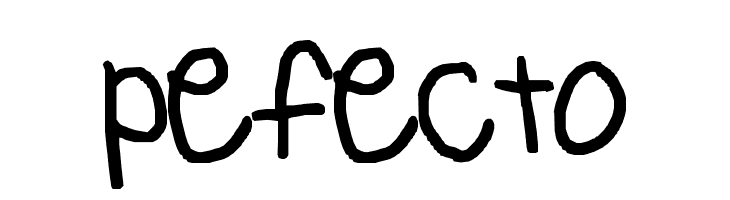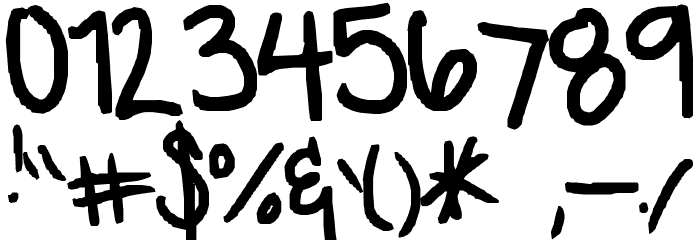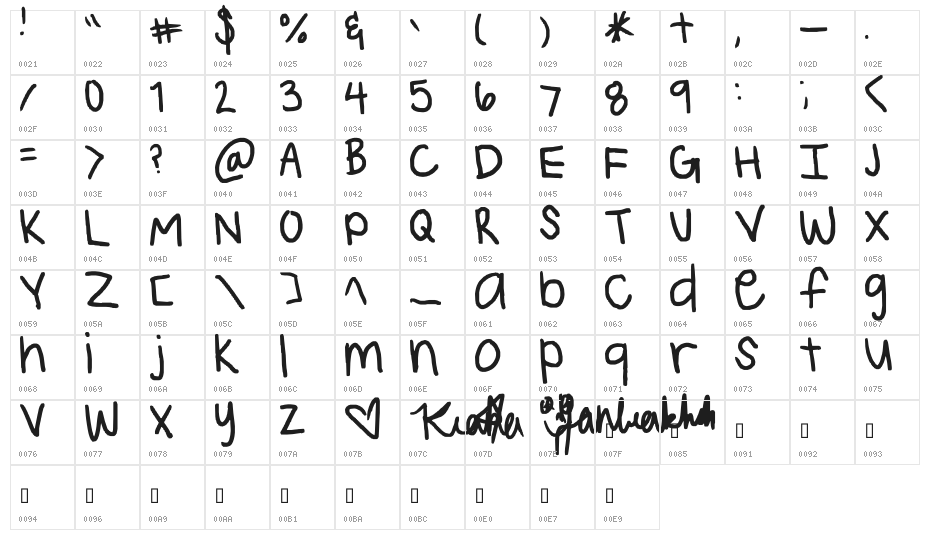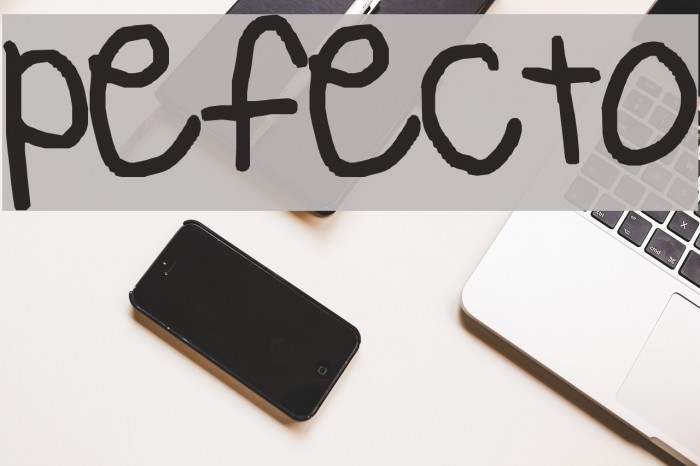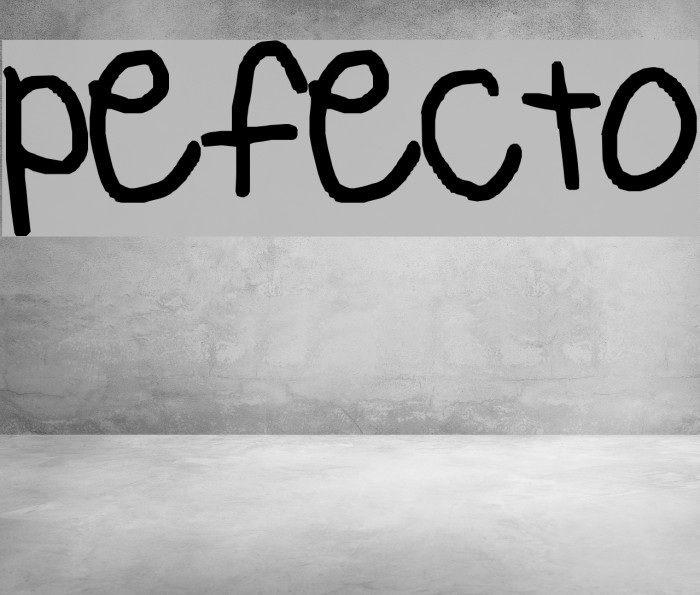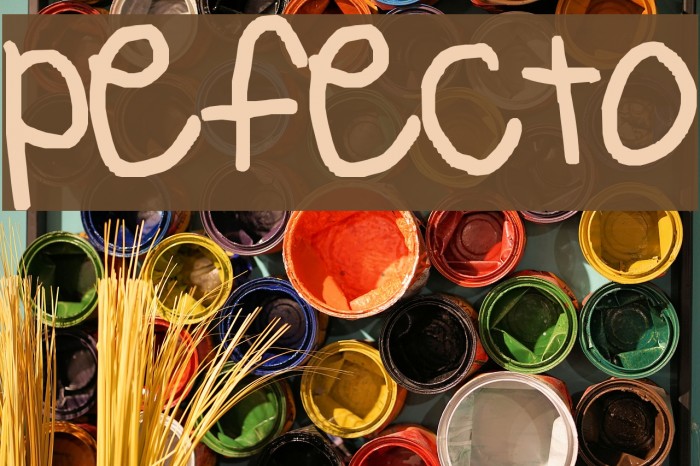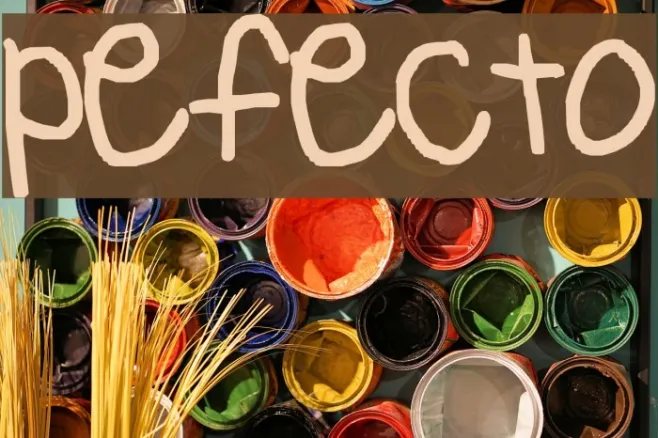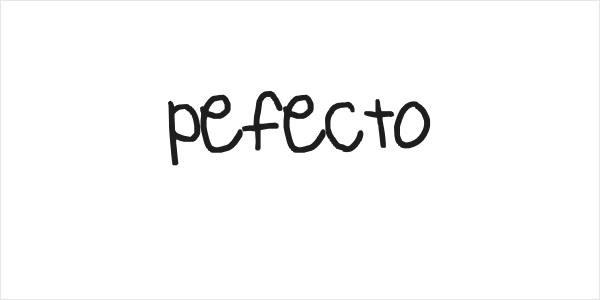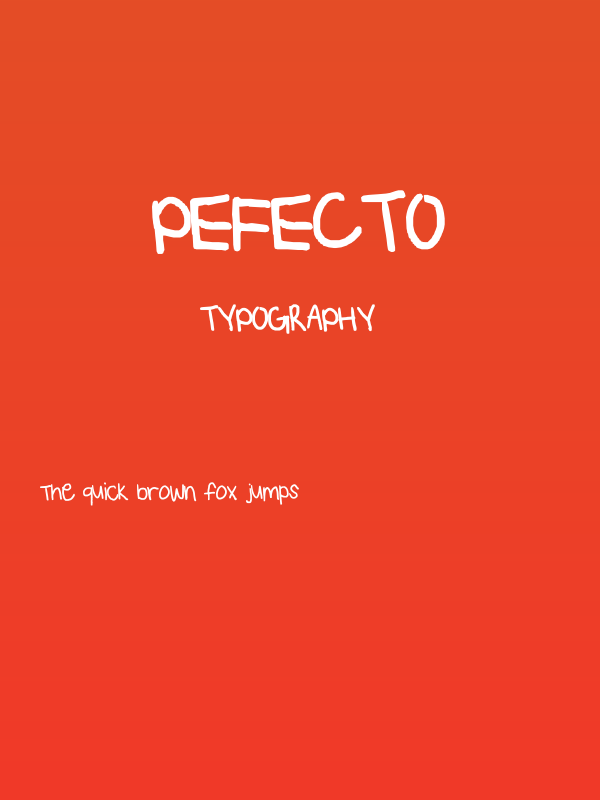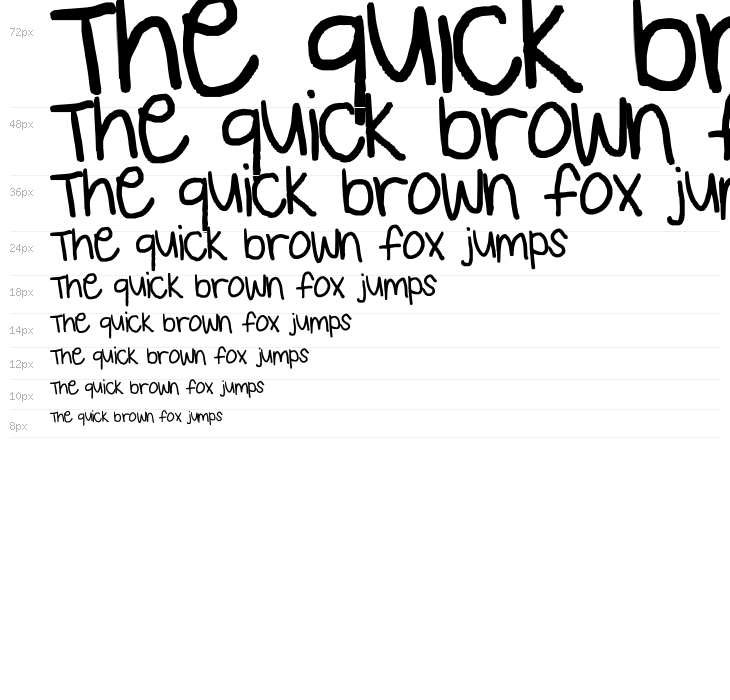
pefecto Font
pefecto Description
This font exudes a casual and playful handwritten style, characterized by its irregular and organic letterforms. Each character appears as if it was drawn with a marker, giving it a personal and informal touch. The uppercase and lowercase letters maintain a consistent flow, while the numbers and special characters complement the overall aesthetic. The strokes are bold and slightly uneven, adding to the font's charm and approachability. It is well-suited for projects that require a friendly and relaxed vibe, such as children's books, greeting cards, or informal branding.
| Proposed Projects | Ideal for children's books, greeting cards, informal branding, and playful designs. |